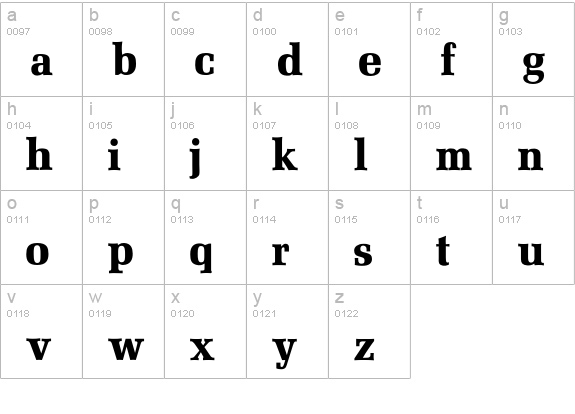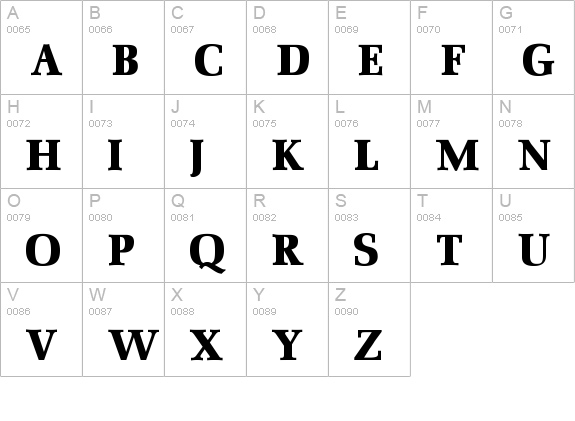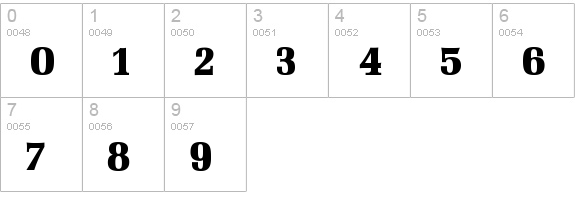
MezzoBold Font Details
MezzoBold font is a versatile and modern typeface that strikes the perfect balance between boldness and elegance. With its clean lines and strong presence, MezzoBold is ideal for a wide range of design projects, from branding to editorial layouts. This font exudes confidence and sophistication, making it a popular choice for designers looking to make a statement. Best of all, MezzoBold is available for free download at FontsMarket.com. This means you can easily access this high-quality font for your projects without breaking the bank. Whether you're working on a website, poster, or logo, MezzoBold will add a touch of style and professionalism to your designs. Download MezzoBold today and elevate your typography game!